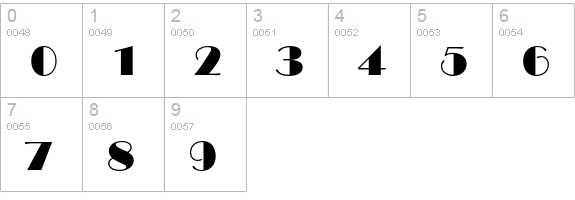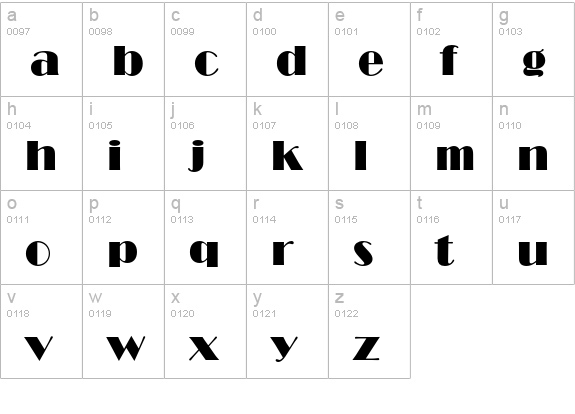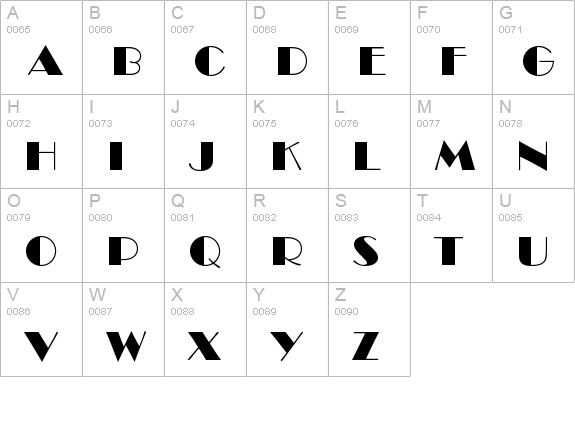
Broadway Font Details
Broadway font is a bold and eye-catching typeface that exudes a sense of elegance and sophistication. With its distinct Art Deco style and sharp, elongated letterforms, Broadway font is perfect for adding a touch of glamour to any design project. Whether you're creating a poster, logo, invitation, or any other creative piece, Broadway font will surely make a statement. The best part? Broadway font is available for free download at FontsMarket.com. This means you can easily access and use this stunning typeface in your projects without any cost. Don't miss out on the opportunity to elevate your designs with the timeless charm of Broadway font. Download it today and let your creativity shine!